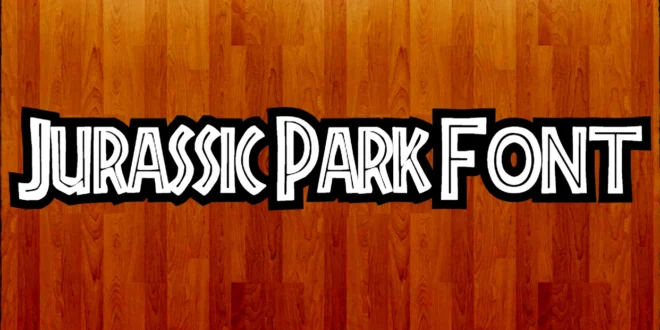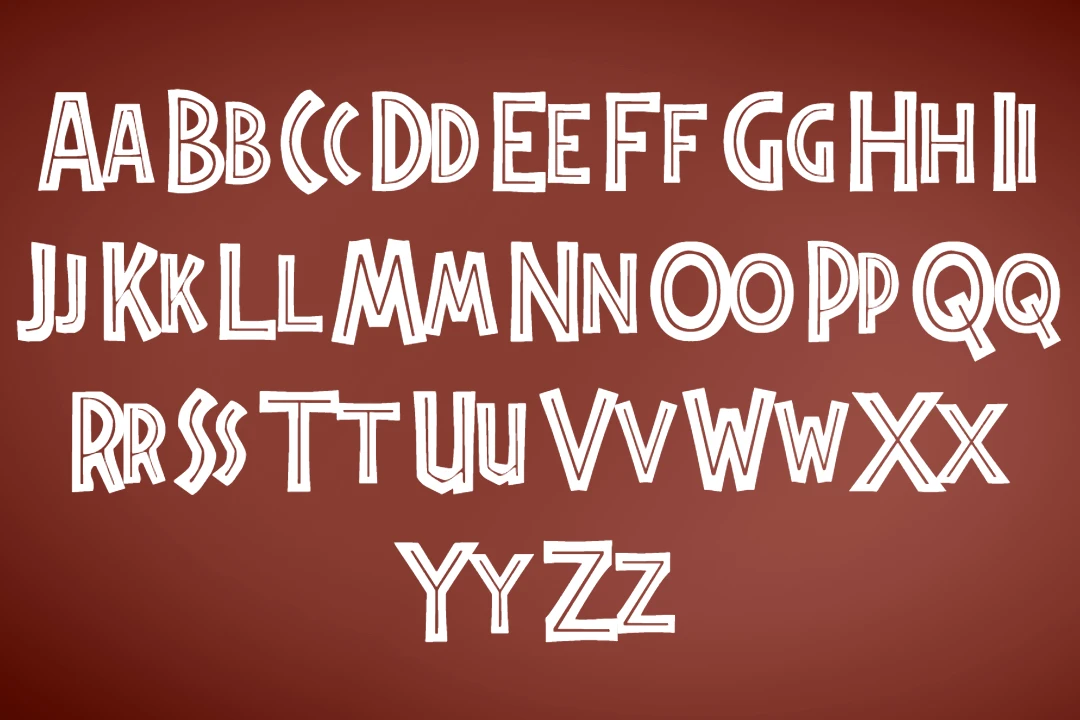
Jurassic Park Font
Jurassic Park Font is the extravagant typeface utilized in various film banners, giving exciting hope to plans. Additionally, the originator of this text style is Jens R. Ziehen, this adds a more branded feel to the font. Also, the logo of Jurassic Park roused this energized series.
Jens R. Ziehen is notable for planning various textual styles on film subjects. This text style will give you the best result when it is utilized with the Parker textual style. Jurassic Park Font would be best for heading for the two magazines and papers.
Moreover, this would be the ideal decision for all message-based plans as this typeface accompanies extraordinary decipherability and this will make your substance effectively meaningful and this will help you in conveying your message effortlessly.
Reason to Use Jurassic Park Font
There are numerous eminent puts on which this typeface can be utilized and all plans that require the exhilarating touch and the best utilization of this text style should be visible in the Jurassic Park logo, and it is likewise being utilized in various logos and banners.
This textual style is additionally being utilized for various kinds of documentation works when utilized with vampiress text style like task headings and for the overwhelming majority of better places on which this text style is being utilized.
NameJurassic Park Font
DesignerJens R. Ziehen
TypeFancy
What Type of Font Is Jurassic Park?
This is the extravagant typeface that is generally utilized for various film banners and all sorts of plans that require exhilarating energy. The groundwork fashioner of this typeface is Jens R. Ziehen and this was propelled by the logo of the Jurassic Park energized series.